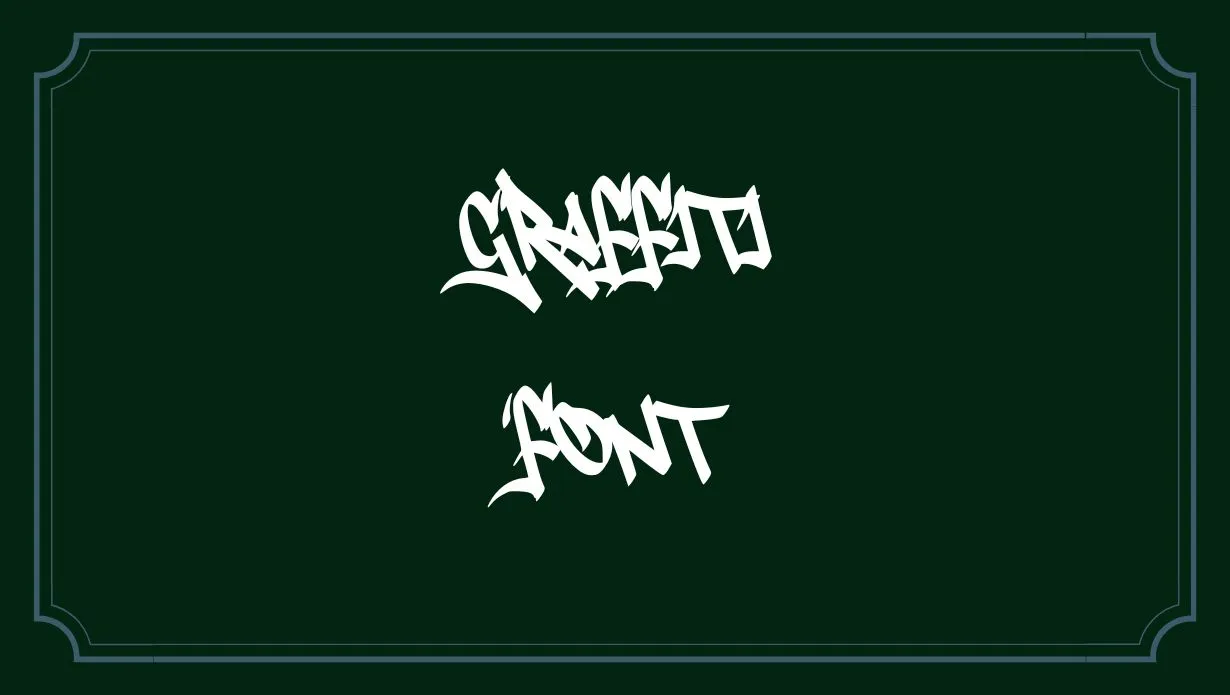
Graffiti Font is the ancient and elegant font typeface, it has a lot of different font styles which you can easily in your designs. Use this lovely font in your current and upcoming projects.
Design Of Graffiti Font
Graffiti font is a stylish calligraphic script font that used to be created via Typeset it in 2012. Dynalite has a fluid and consistent kind that simply appears high-quality. Cricut is certainly one of my favourite free based script fonts.
This typeface was used in ancient when people have not photocopier or newspaper or fax machine. You have used this typeface to convey the message to others or scratched on the wall.